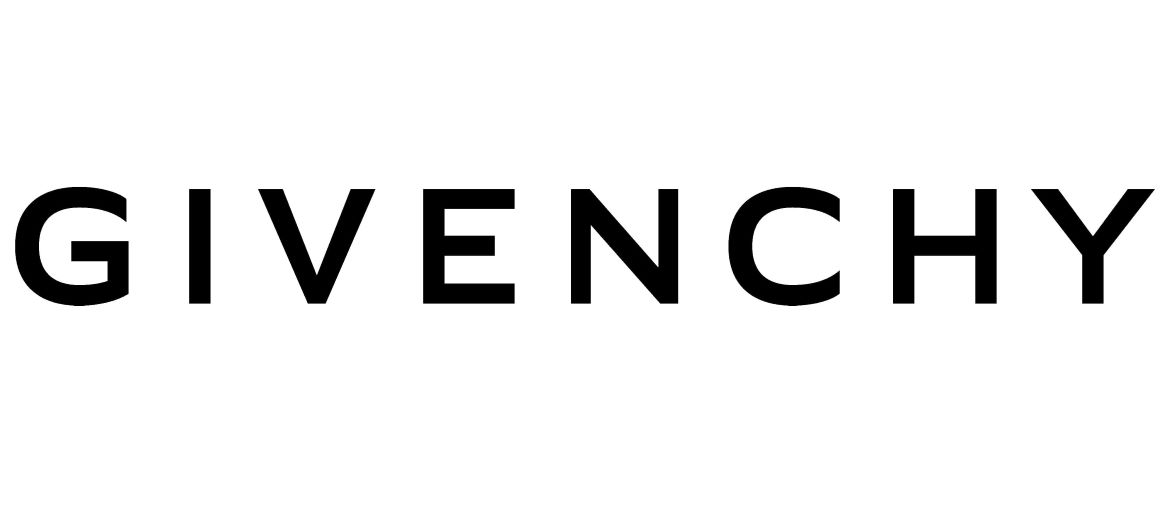
Givenchy Font
What Font is Givenchy?
Givenchy Font embodies luxury, precision, and modern minimalism—perfectly capturing the identity of the Givenchy fashion house. The font used in the logo was a custom design created in 2003 by Paul Barnes, with Peter Saville serving as art director. Its sleek geometry and refined proportions convey timeless sophistication and confidence. While the original design remains exclusive, two fonts come impressively close to replicating its look: Media Gothic (which is free, with slight modifications to the G, E, and C) and Mr Eaves Mod Bold, a premium typeface. Both options offer designers a chance to achieve that same polished, high-fashion aesthetic found in Givenchy’s iconic branding.
About Givenchy
Givenchy is a legendary French luxury fashion house founded in 1952 by Hubert de Givenchy. Known for its elegant haute couture, chic ready-to-wear, and signature accessories, the brand has dressed icons such as Audrey Hepburn and Jackie Kennedy. Today, Givenchy continues to blend classic Parisian sophistication with modern innovation, standing as a symbol of understated glamour and refined style.